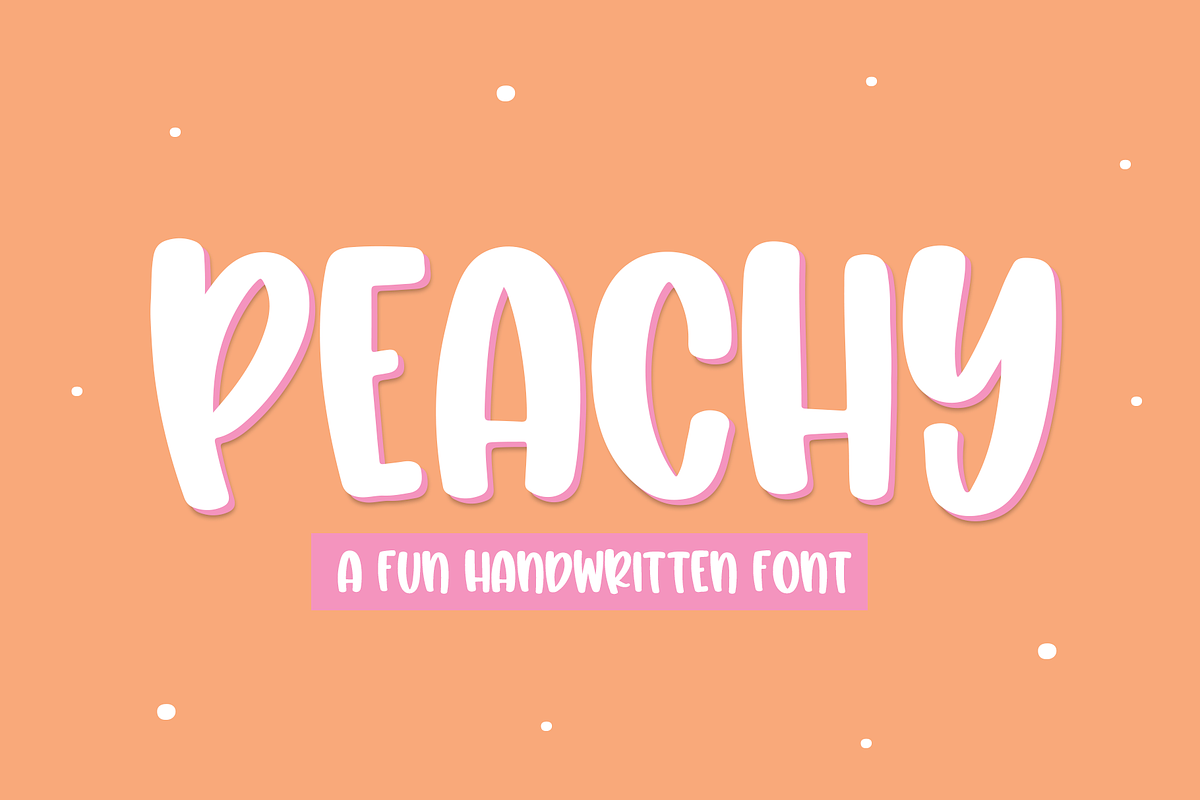
You must purchase this font for commercial use. However, you can download Peachy | Fun Handwritten Font Free Download for testing purposes. Peachy is a fun, whimsical handwritten font that captures the essence of playful, casual handwriting. Perfect for creating vibrant logos, invitations, greeting cards, posters, and social media content, this font brings a joyful and relaxed feel to any project.
With its smooth strokes, bouncy letters, and friendly vibe, Peachy adds a light-hearted touch to your designs, making it ideal for projects that need a bit of charm and personality. Whether you're designing for a children's brand, crafting a personalized gift, or adding a creative touch to a casual event, this font offers flexibility and flair.